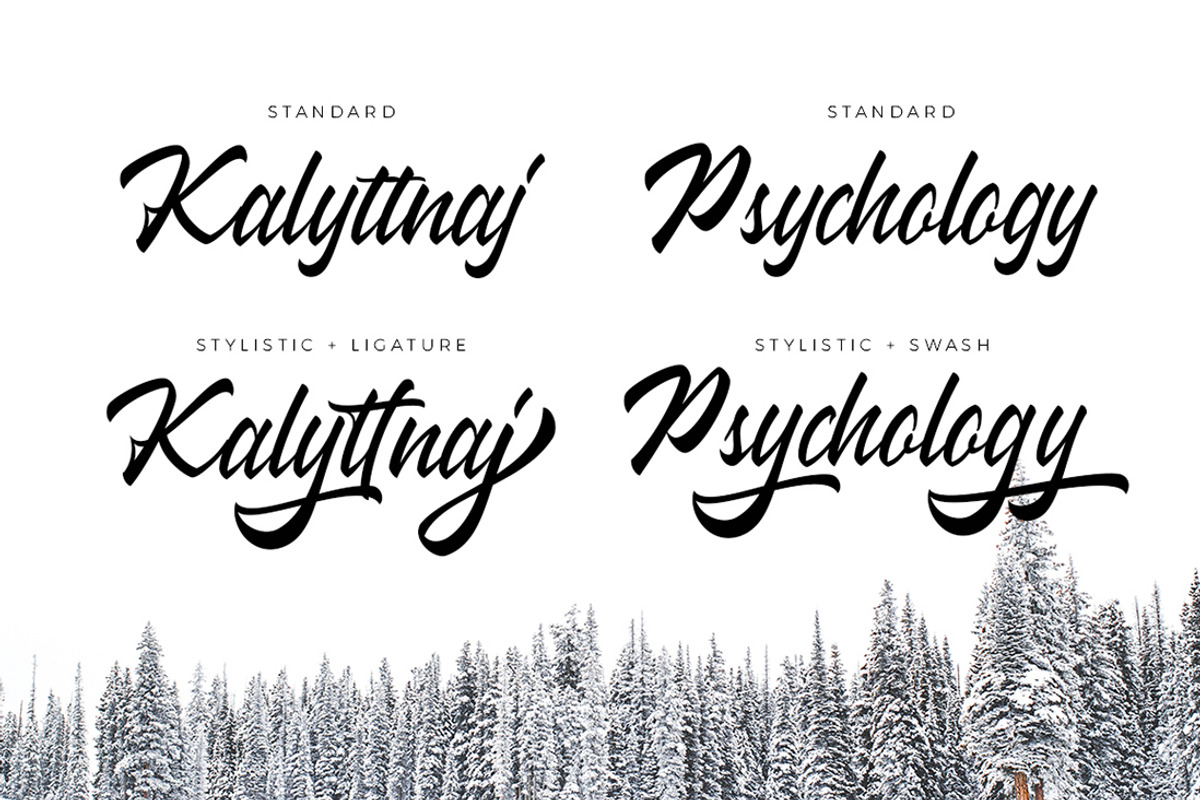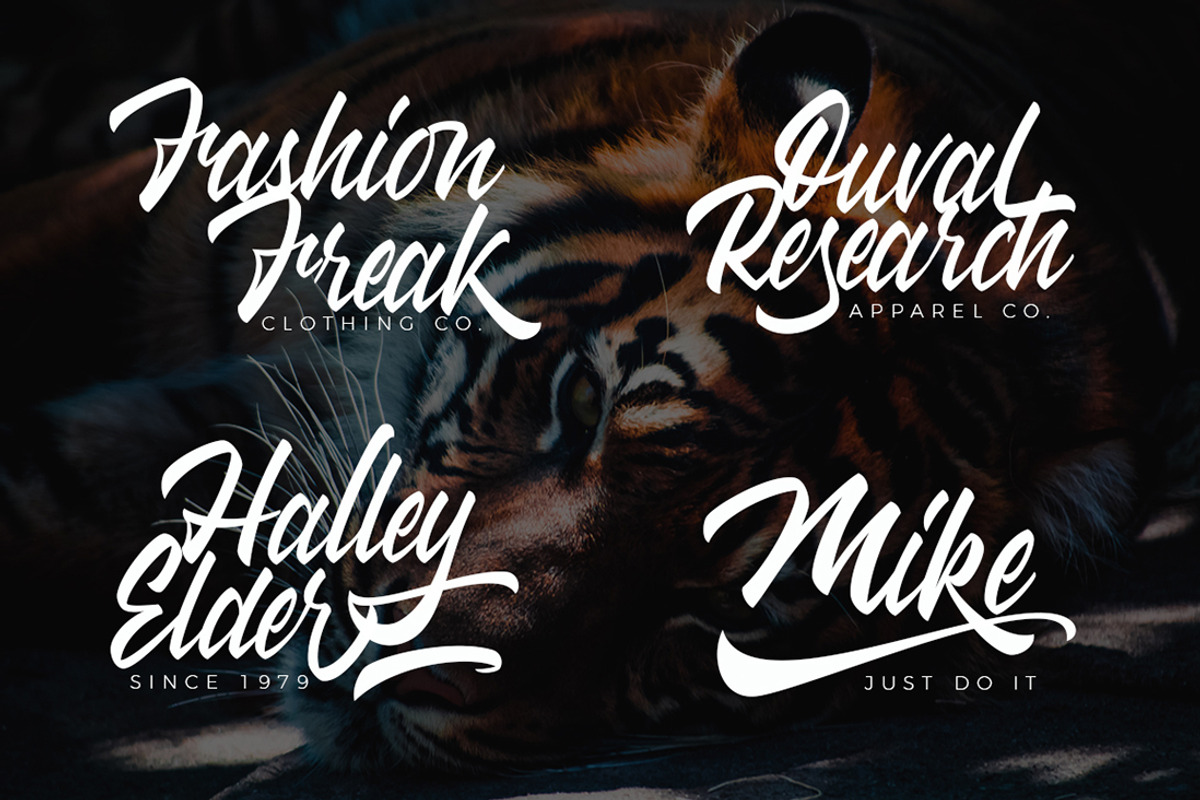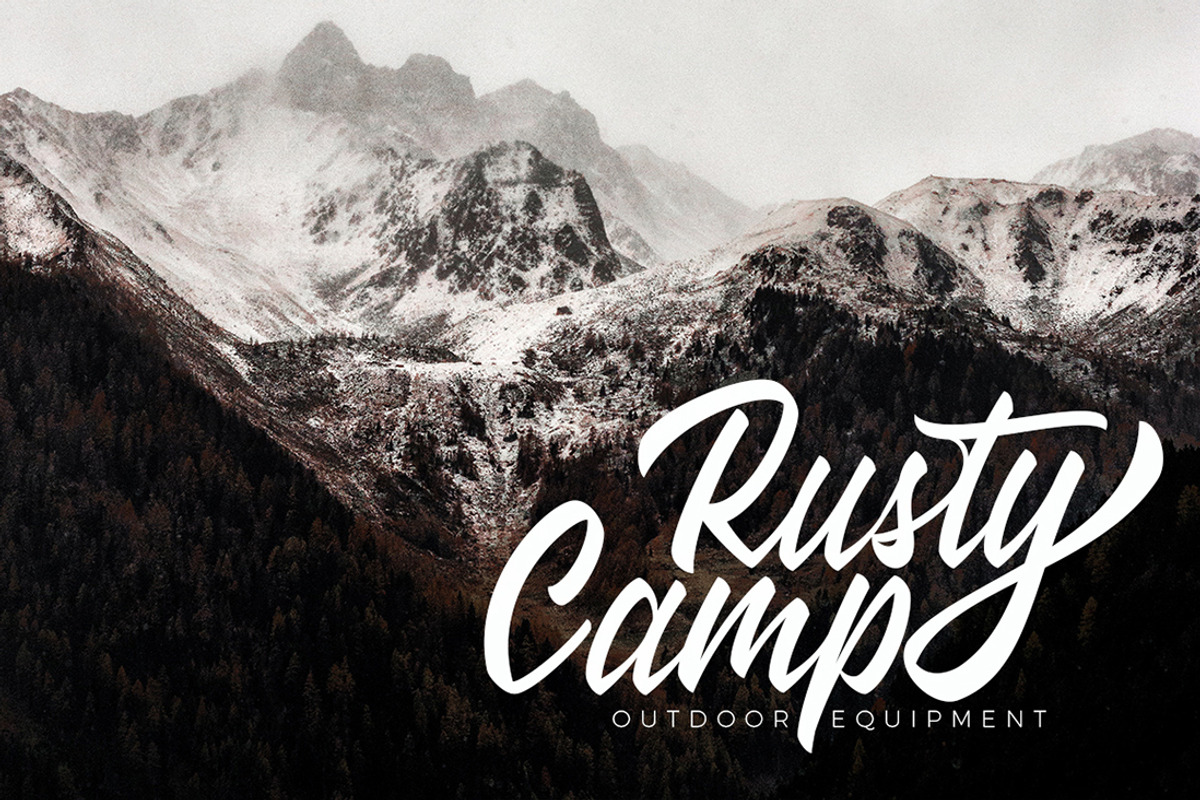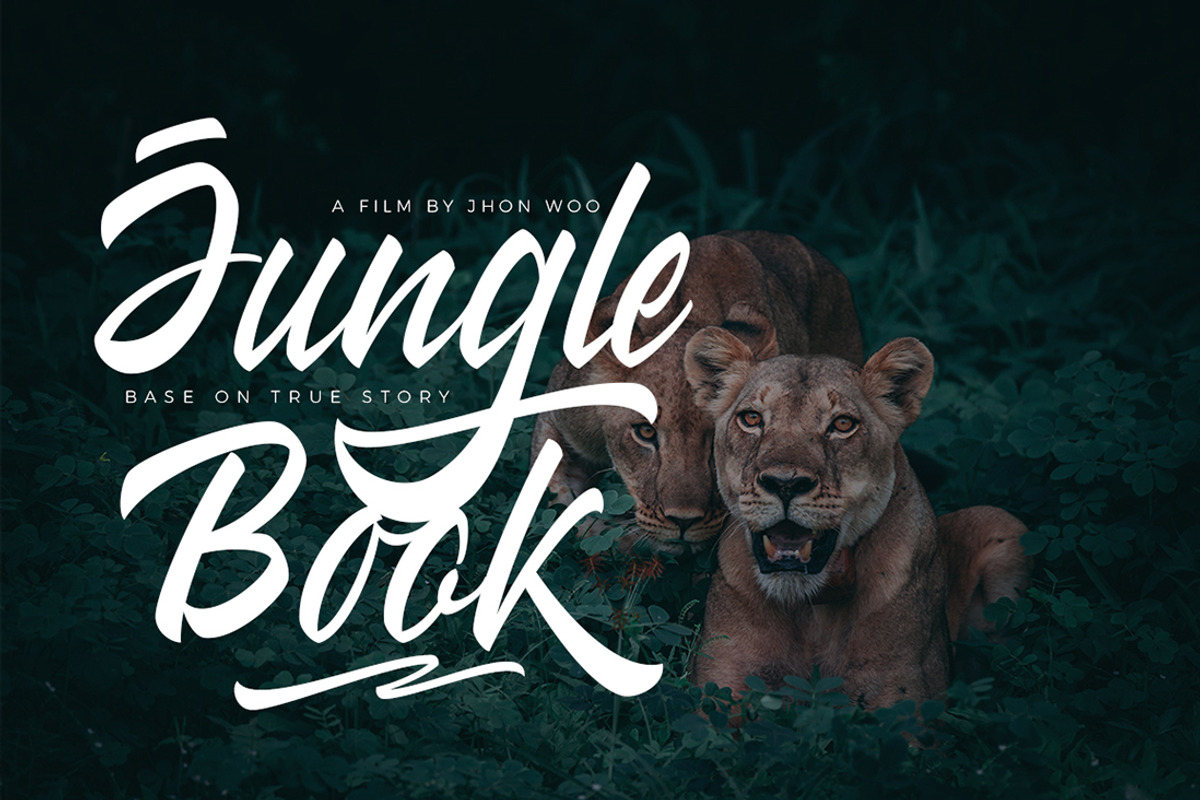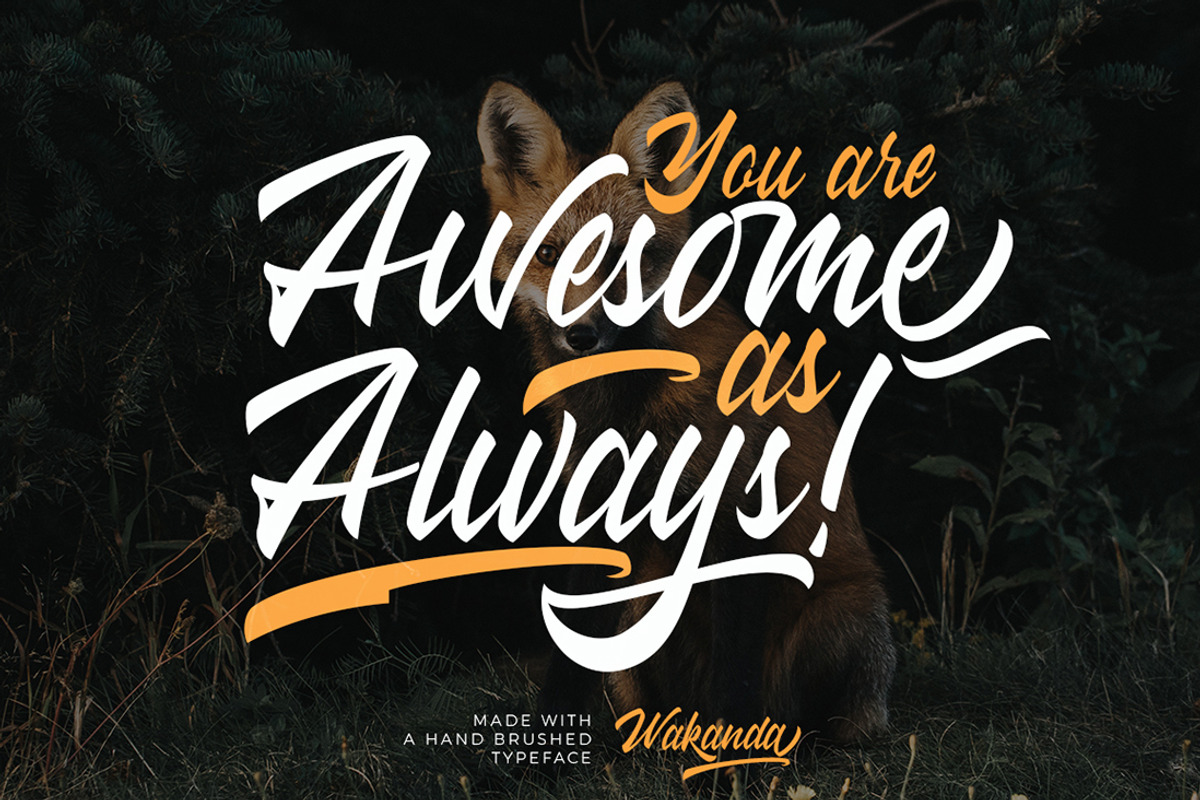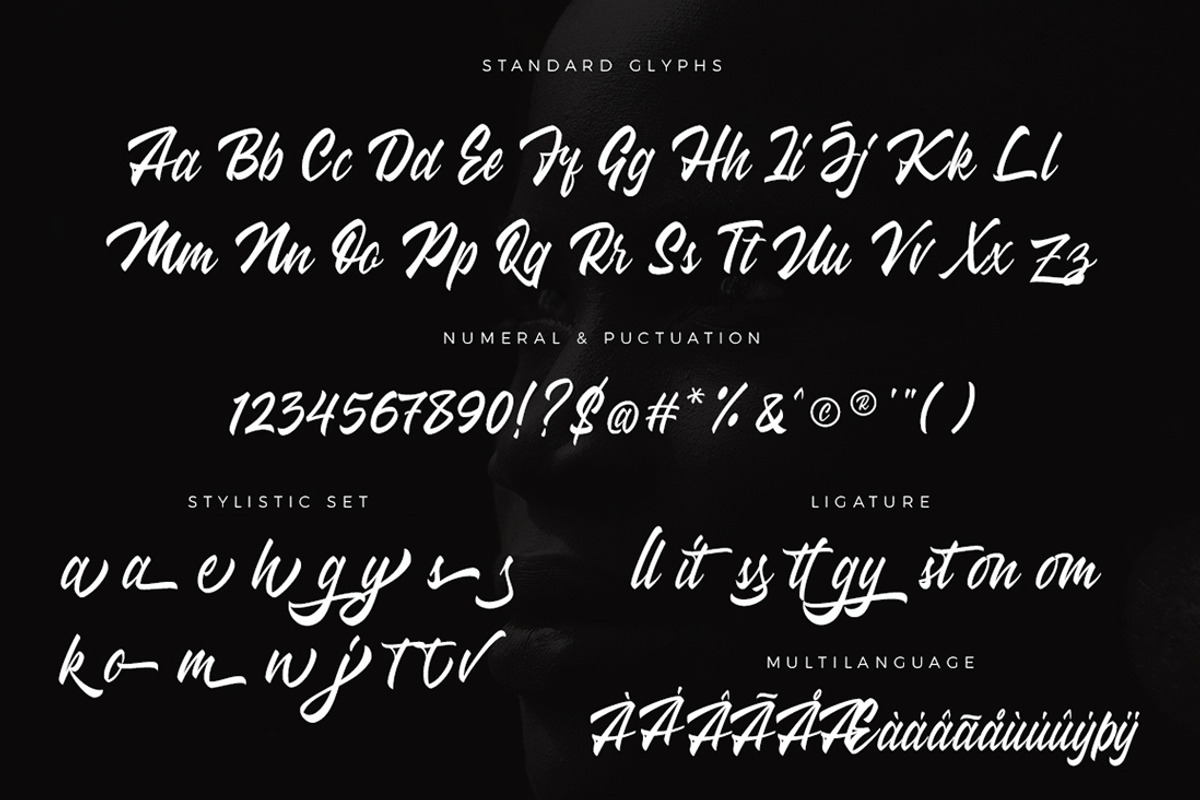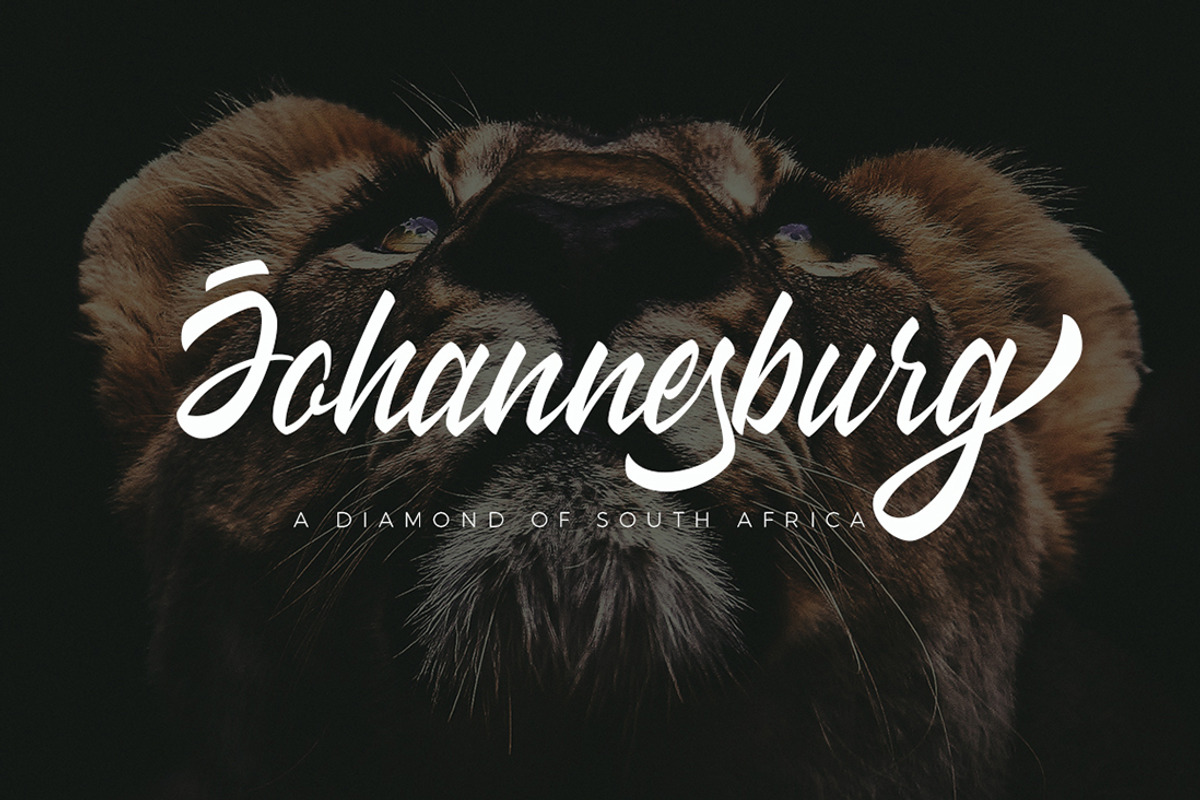
Wakanda Script Business Font
Wakanda - a stylish & modern handletter script typeface. This font will looks awesome and amazing in many way to your latest project.
Wakanda is perfect for many different project such as logos & branding, invitation, stationery, wedding designs, social media posts, advertisements, product packaging, product designs, label, photography, watermark, special events or anything.
More than 240 of glyphs (include Uppercase, Lowercase, Numerals & Punctuations, Ligature, Stylistic, Swashes)